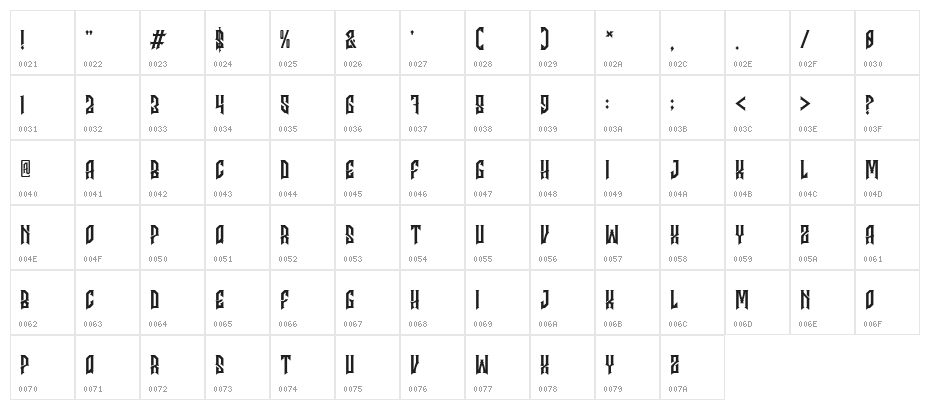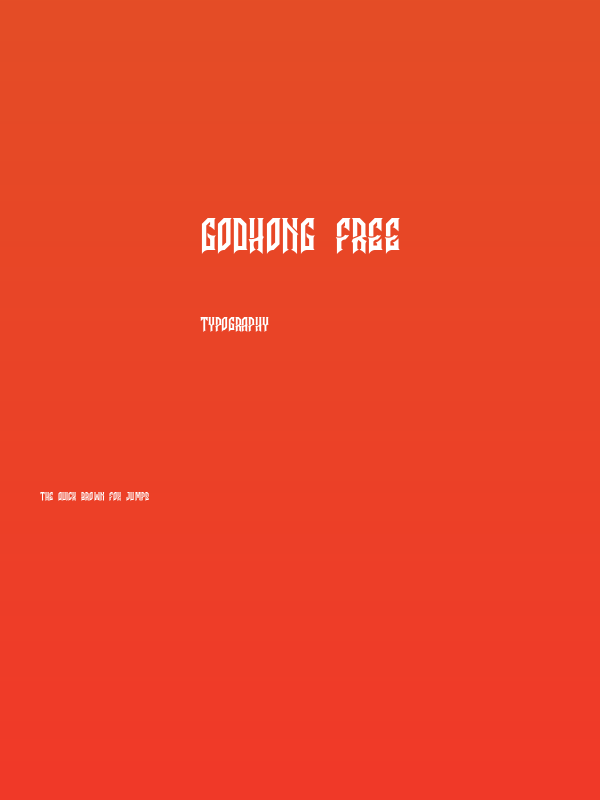
Godhong Free Font
Godhong Free Description
This font features a bold and striking design with sharp, angular edges and a gothic-inspired aesthetic. The uppercase and lowercase letters maintain a consistent style, characterized by their pointed serifs and dramatic strokes. The numerals and special characters follow the same design principles, ensuring a cohesive look across all elements. The font's unique style makes it stand out, with a strong presence that commands attention. Its intricate details and bold appearance make it suitable for projects that require a touch of drama and elegance.
| Overall Style | Gothic, Decorative |
| Proposed Projects | Ideal for use in branding, posters, album covers, and any project requiring a dramatic and eye-catching typeface. |